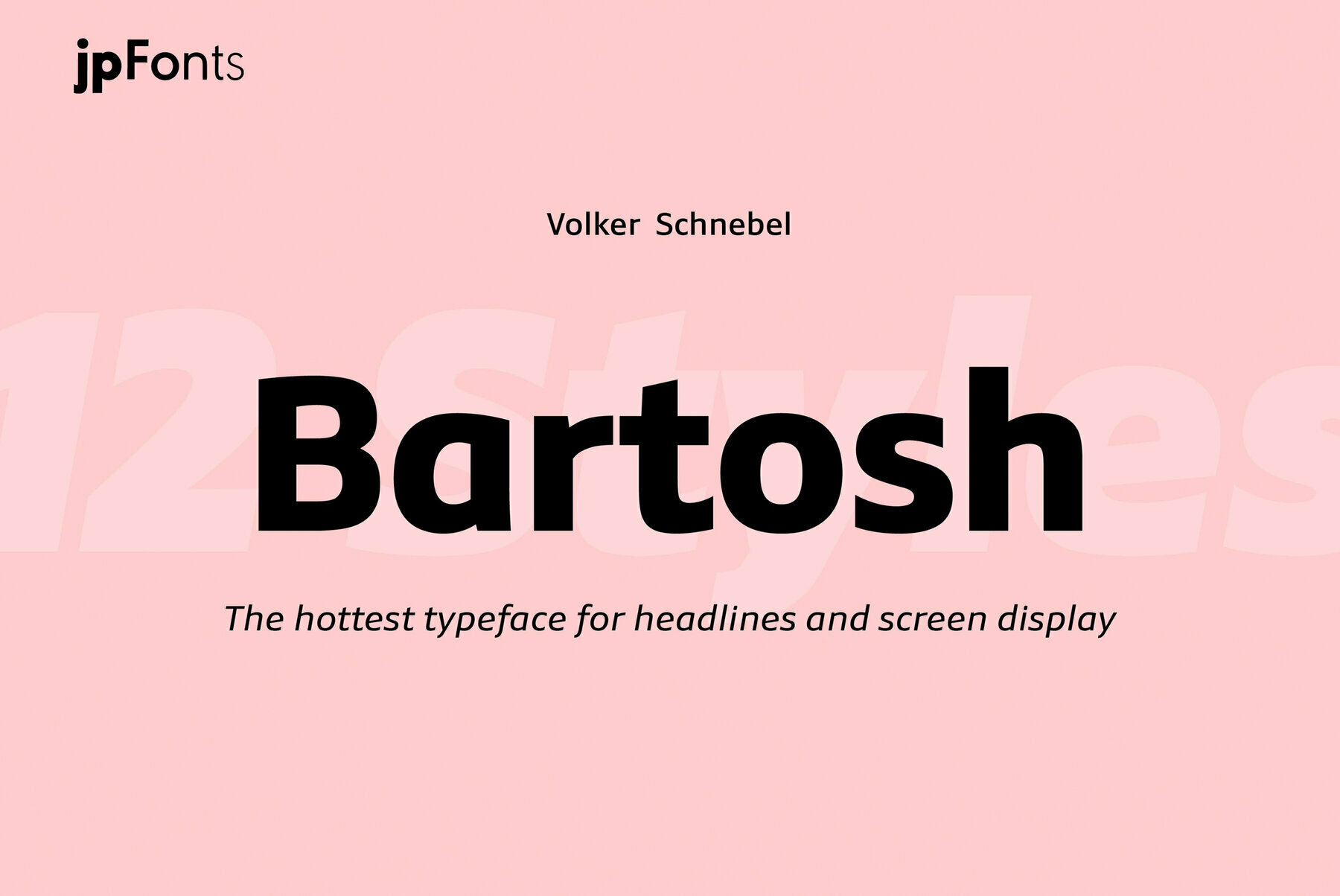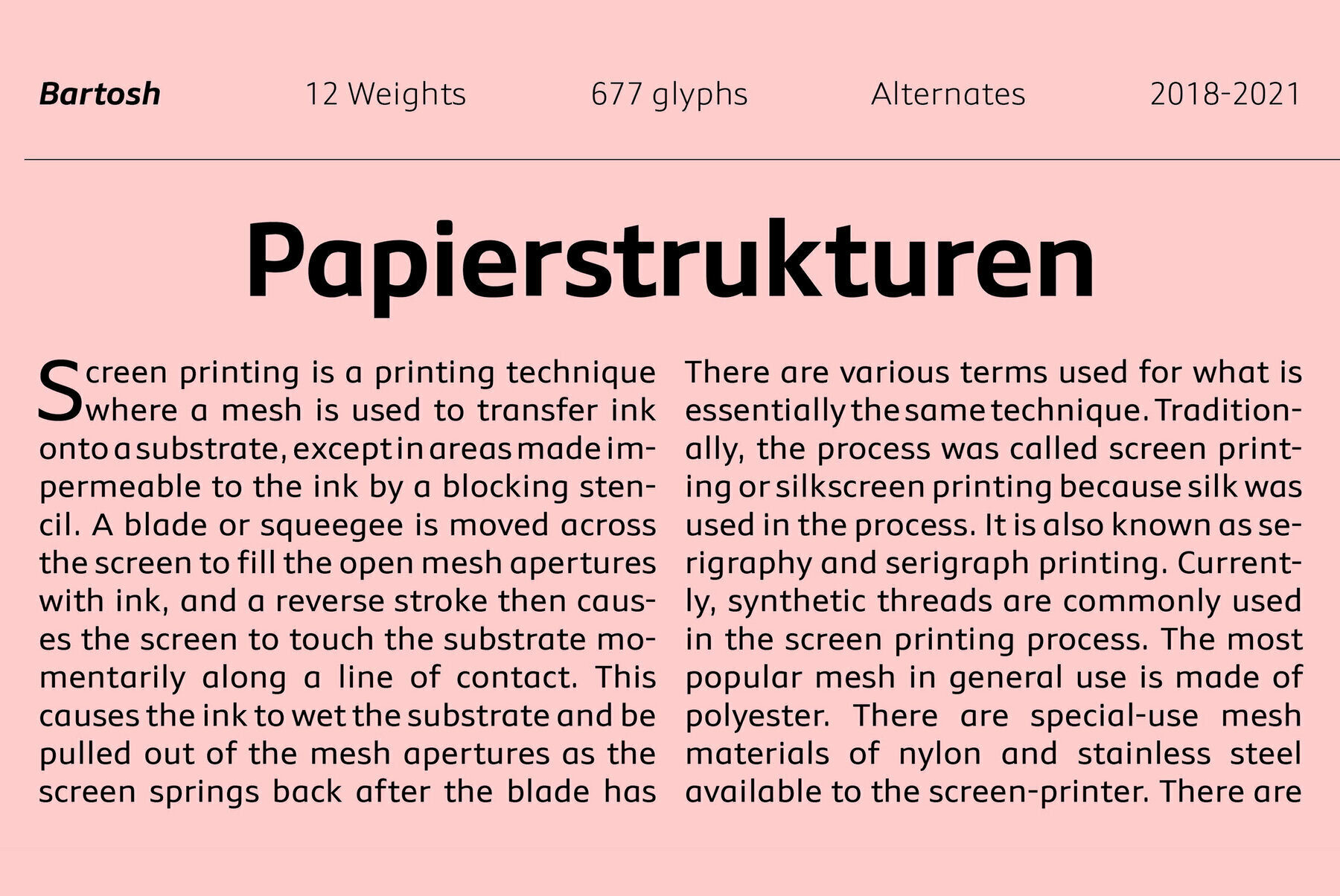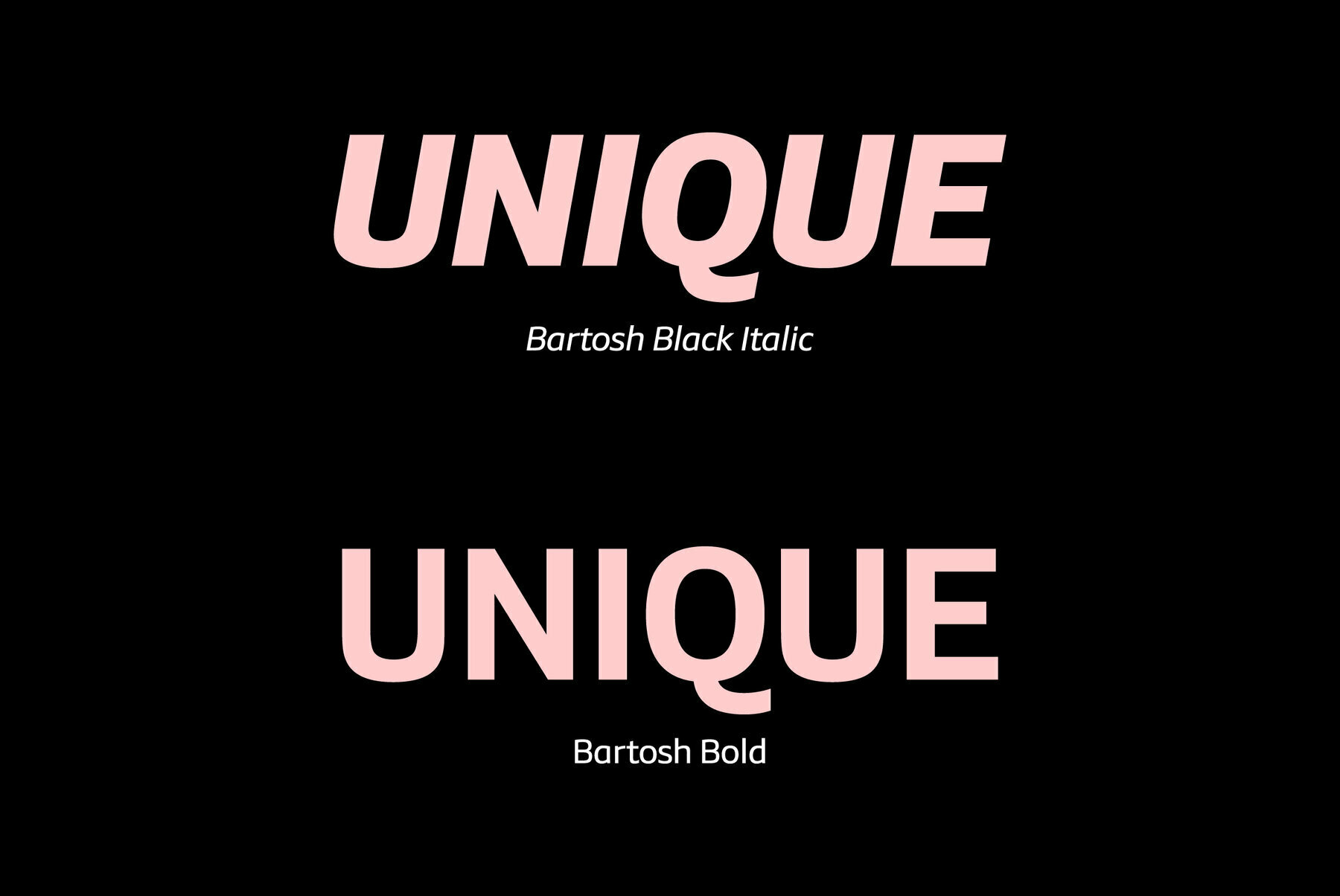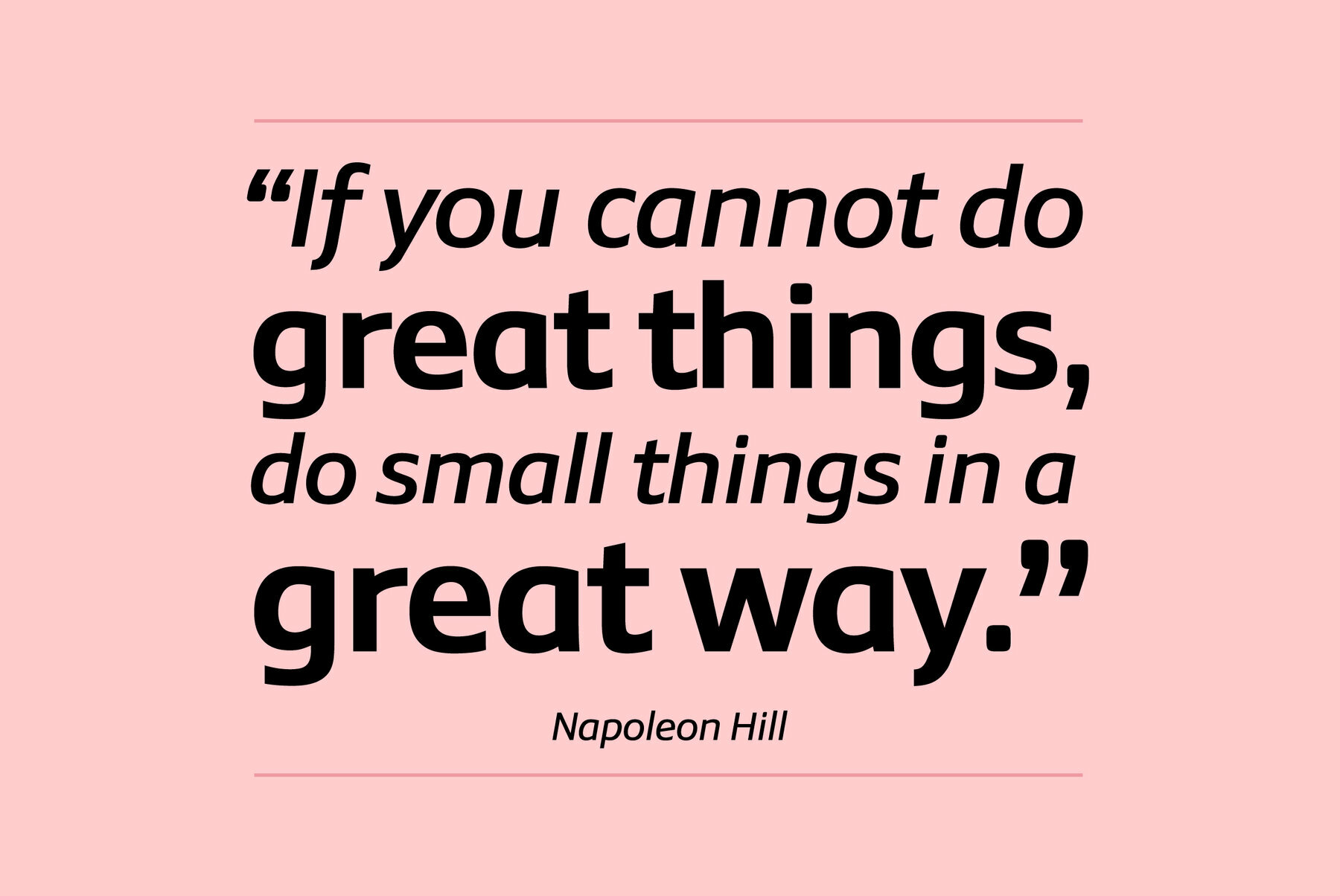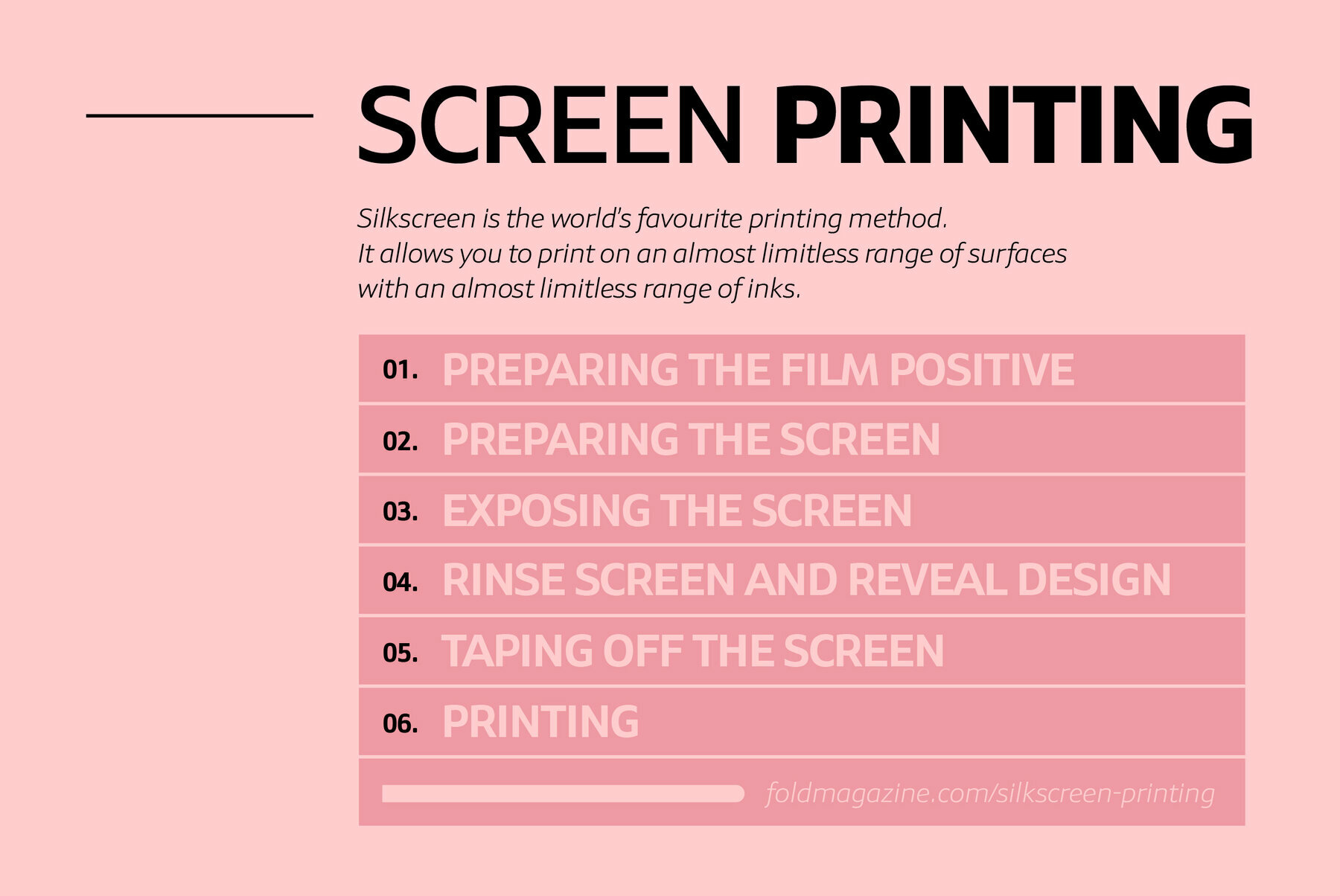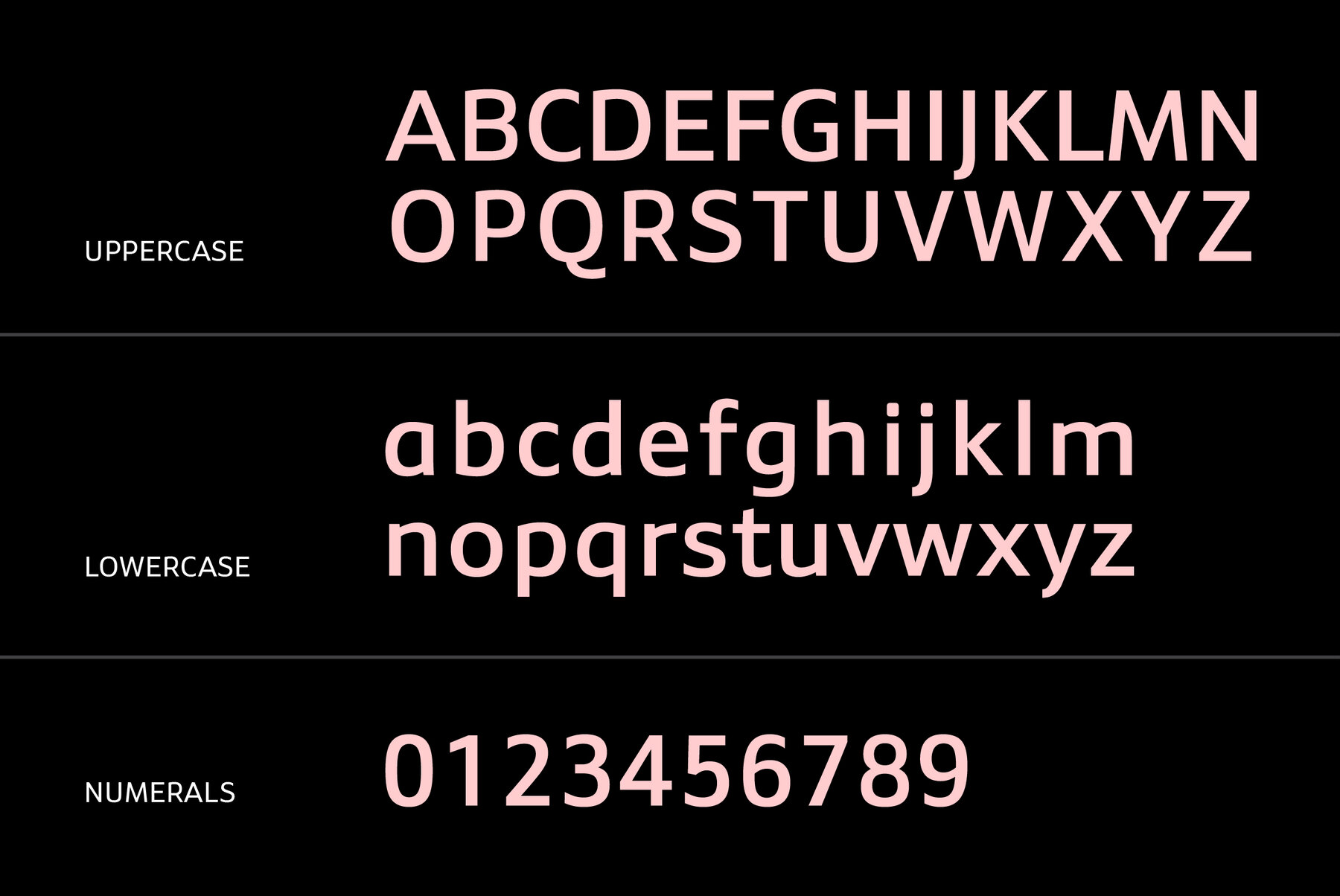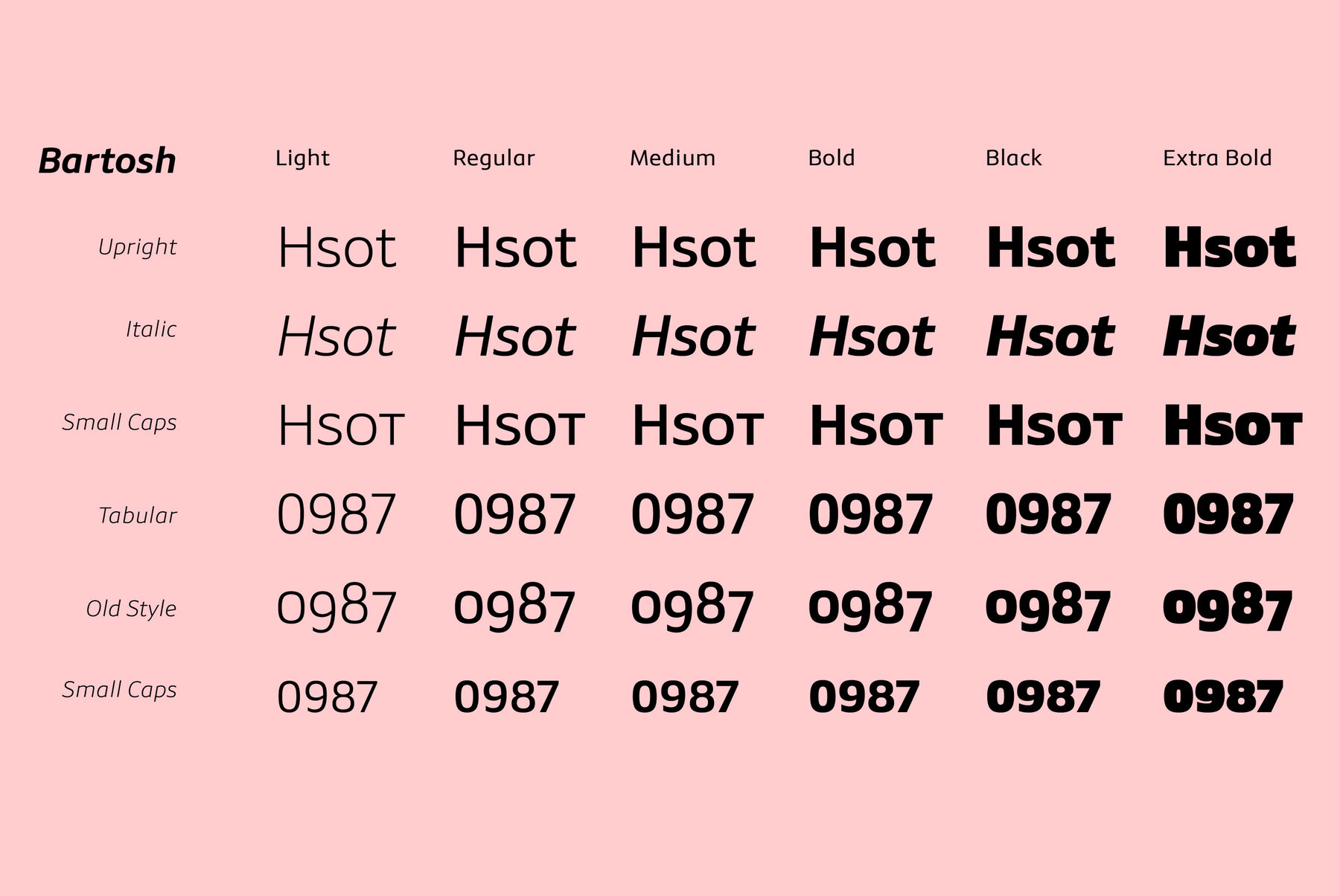
Bartosh Font
Bartosh is the American short form for Bartholomew. Although I chose this font name because of its sound and its short conciseness, I also liked the fact that Bartholomew had been one of the 12 apostles who had worked in India and Iran and the idea that his spirit could be the inspiration for my work.
Bartosh was designed for display on the screen: the large x-height and the clear, open shapes facilitate readability. As a result, it develops a strong expression of character and makes it ideal for headings or highlighting individual text passages – it is ideal for captions of any kind.
In each of the six weights, it unfolds its own and special charm. The extra-bold version is particularly noteworthy because fonts in this stroke width are rare and it is precisely these extreme bolds that give them a special graphic appeal.
For all fonts there are matching italics in a well-developed set of 677 characters. In addition, it is possible to change the digits and currency characters from proportional to tabular or OldStyle via the OpenType feature, and small caps are also available in all fonts.